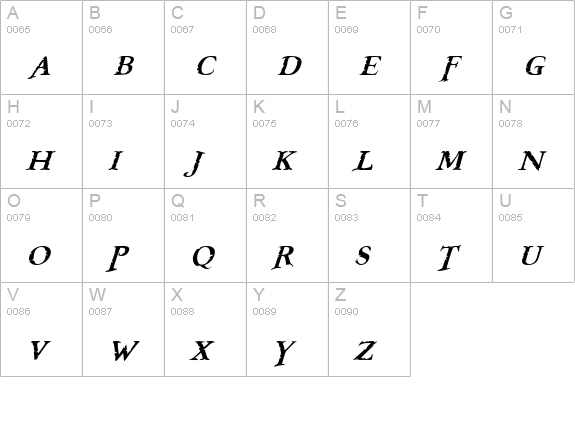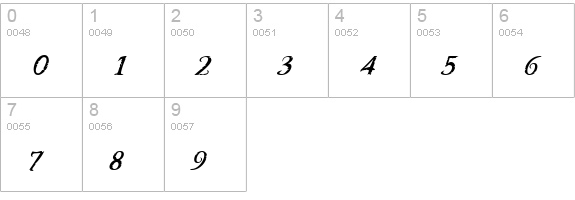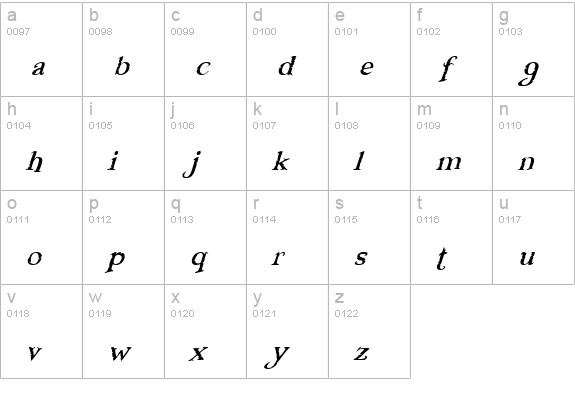
Freebooter Italic is a distinctive, italic variant in the Freebooter typeface family \xE2\x80\x94 well suited to design and typography projects.
Introducing Freebooter Italic font, a stunning typeface that exudes elegance and sophistication. This exquisite italic font boasts a unique blend of classic charm and modern flair, making it perfect for adding a touch of luxury to any design project. The graceful curves and delicate strokes of Freebooter Italic font create a sense of fluidity and movement, capturing the eye and drawing the reader in. What makes Freebooter Italic font even more appealing is that it is completely free to download at FontsMarket.com. This means that you can effortlessly enhance your projects with this premium font without any cost or hassle. Whether you're working on invitations, branding, signage, or any other creative endeavor, Freebooter Italic font is sure to elevate your designs to new heights. Download it now and experience the beauty and versatility of this exquisite typeface.